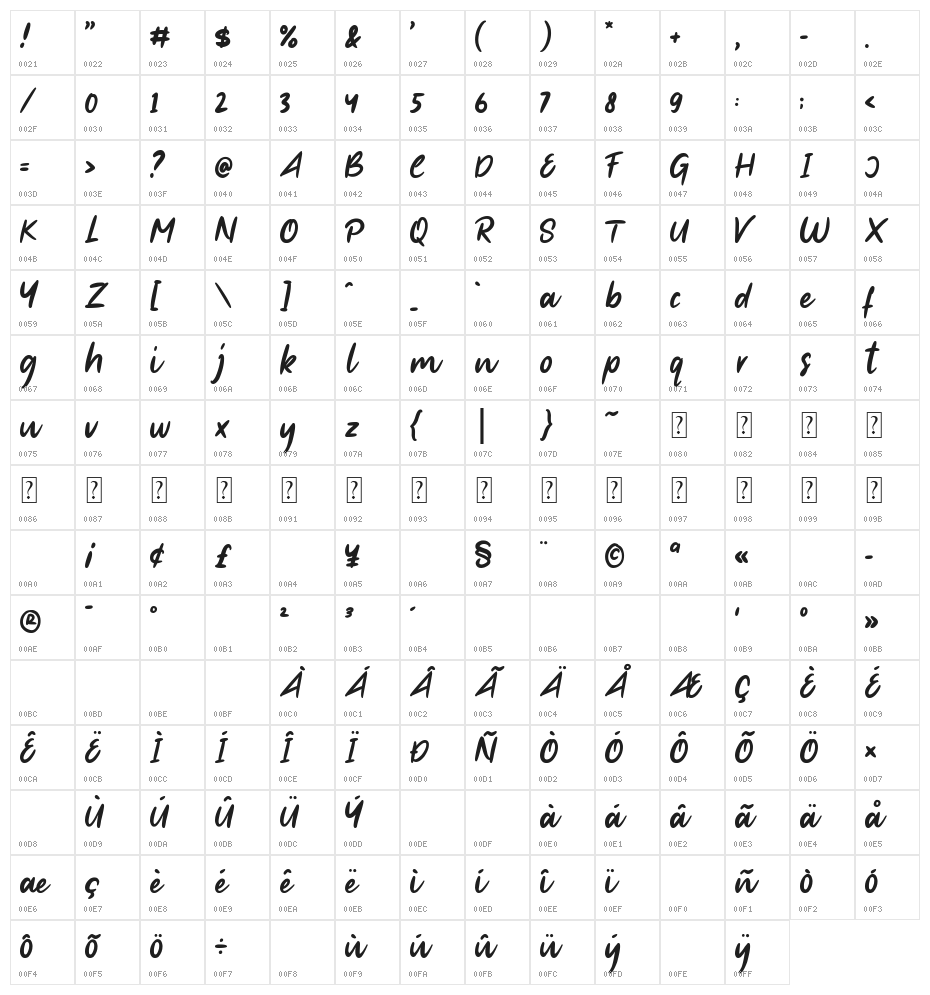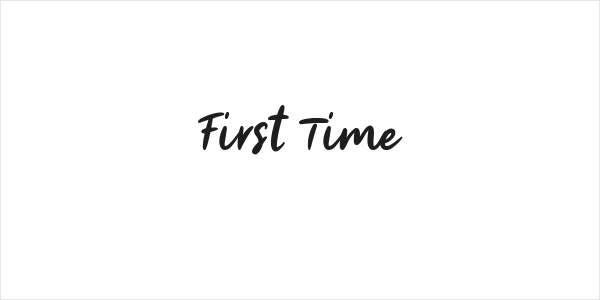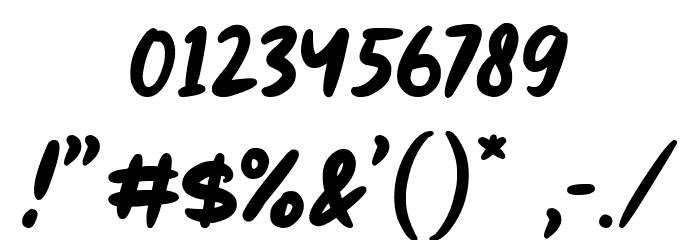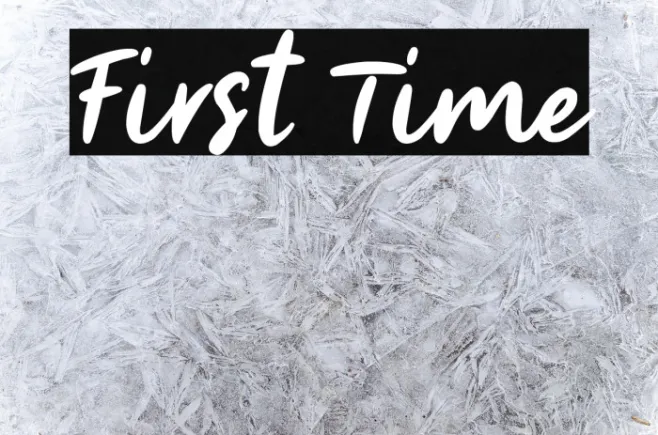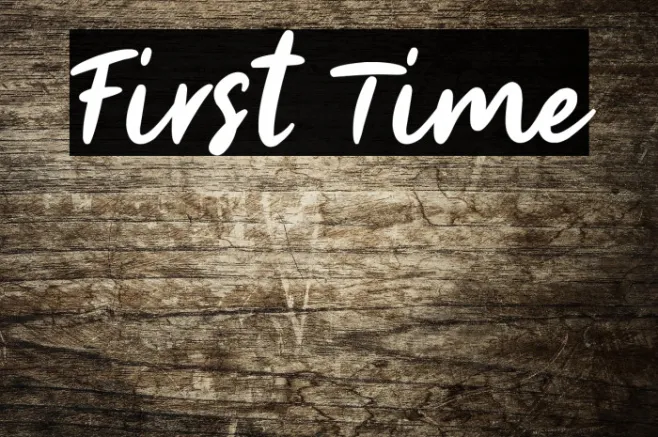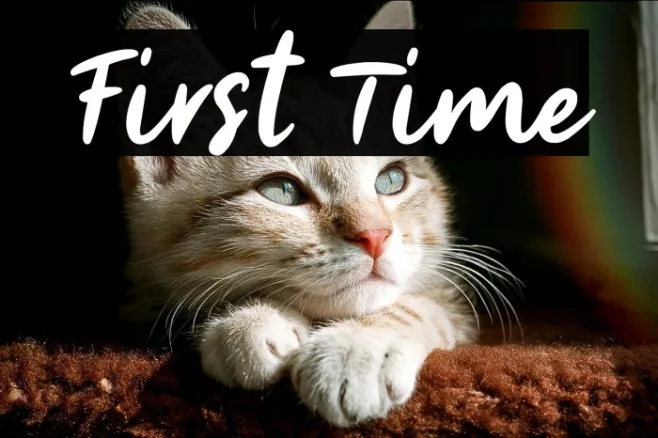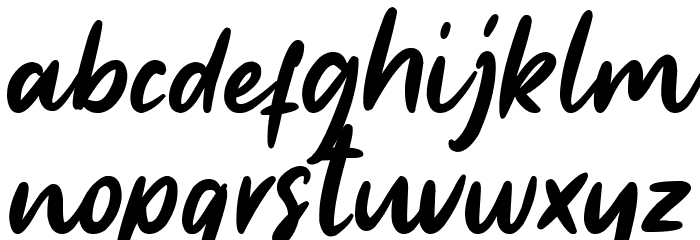
First Time Font
First Time Description
This font features a lively and dynamic script style, characterized by its fluid and connected letterforms. The strokes are bold and expressive, with a consistent thickness that gives it a strong presence. The uppercase letters are slightly more angular, while the lowercase letters maintain a smooth, flowing appearance. The numbers and special characters are designed to match the overall energetic feel, making it suitable for projects that require a personal and informal touch. The spacing between characters is tight, enhancing the cohesive look of the text.